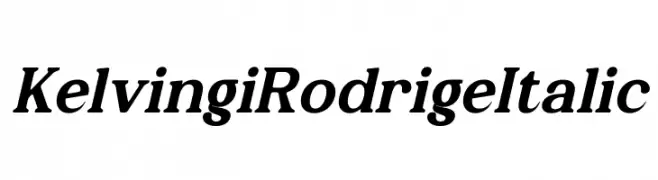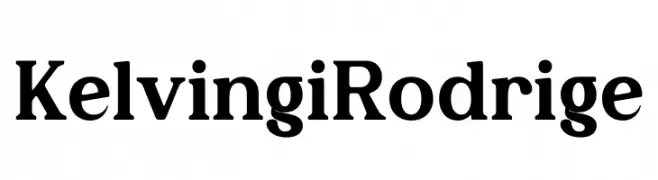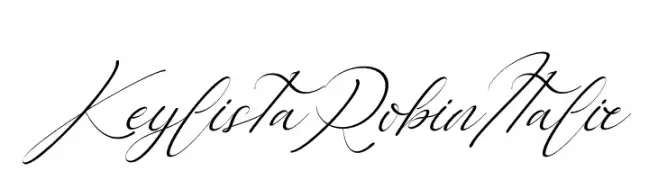
A classic serif font with bold strokes and high contrast, perfect for formal uses.
Elegant serif font with an italic slant and moderate contrast.
An elegant script font with flowing, ornate swashes and flourishes.
An elegant cursive font with fluid, sophisticated strokes.
A playful, bold font with rounded edges and a whimsical style.
A playful, bold font with rounded, whimsical characters.
A bold, brush-style font with an energetic and artistic appearance.
An elegant and flowing script font with sophisticated, sweeping curves.
A graceful and flowing script font with elegant, interconnected strokes.
A flowing, cursive handwritten font with elegant strokes and moderate contrast.